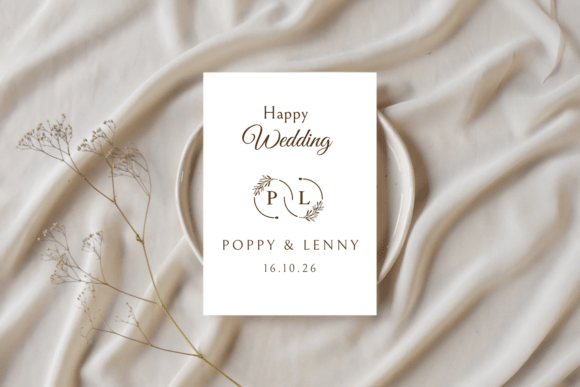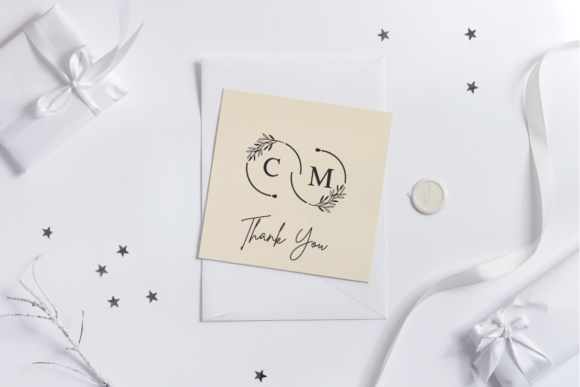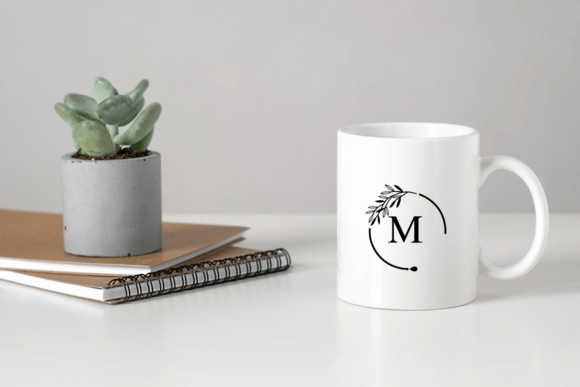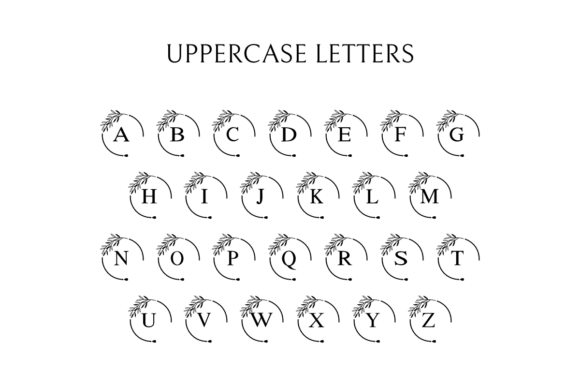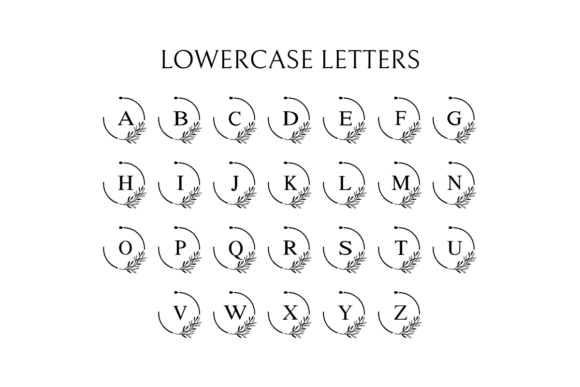
Unleashing Your Inner Artist: Discovering the Magic of Floralframe Monogram Font
Remember the feeling of getting lost in a sea of colorful pens and paper as a child, creating masterpieces that told stories of their own? As we grow older, that spark of creativity remains, waiting to be reignited. Whether it’s a heartfelt letter, a birthday card, or a social media post, the right font can make all the difference in bringing our ideas to life.
Enter the enchanting Floralframe Monogram Font, a beautiful decorative font that invites you to let your imagination run wild. This gorgeous typeface is perfect for taking notes, writing a diary, or making greeting cards, but its versatility knows no bounds. With the Floralframe Monogram Font, designers can create stunning banners, content, mugs, cards, shirts, stationery, and social media posts that truly stand out.
Floralframe Monogram Font Key Features
- Unique Hand-Drawn Design: The Floralframe Monogram Font features a distinctive hand-drawn design with intricate floral patterns, making it perfect for adding a touch of elegance and sophistication to your designs.
- Perfect for Monogramming: The Floralframe Monogram Font is specifically designed for monogramming, making it perfect for creating custom monograms, logos, and other designs.
Review of Floralframe Monogram Font
Overall, I’m quite impressed with the Floralframe Monogram Font. Here are some of the things that really stand out: ✨
- Unique blend of elegance and whimsy – it’s a perfect fit for any design project that requires a touch of sophistication and playfulness.
- Excellent for custom monogram designs, wedding invitations, and other special occasion graphics.
- Great for both digital and print projects – the font looks sharp on screens and prints beautifully on paper.
However, I do have a few concerns: ⚠️
- Some of the characters may not be suitable for certain design projects, such as logos or titles, due to their ornate nature.
- The font may not be as versatile as some other monogram fonts on the market, with limited customization options.
Overall, I would recommend the Floralframe Monogram Font for designers who are looking for a unique and elegant monogram font. While it may not be the most versatile option, it’s perfect for special occasion designs and will add a touch of sophistication to any project.
Floralframe Monogram Font is ideal for:
- Branding and logo design
- Special occasion graphics and decorations
For optimal results, use the font in combination with floral or vintage-inspired designs.